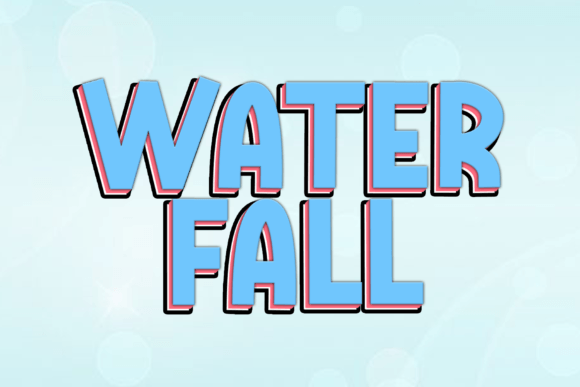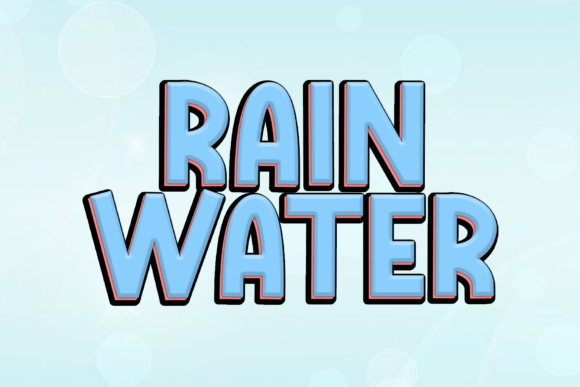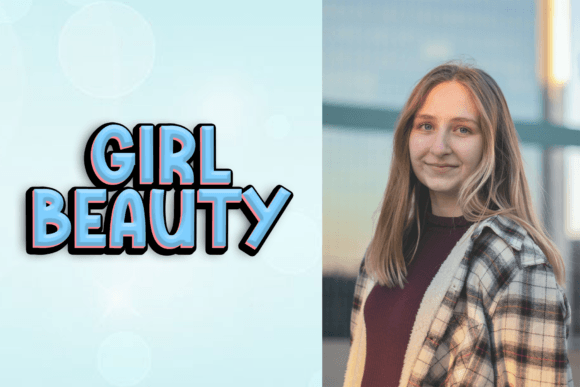
Sparkle Water Font: A Cute Display Font for Social Media Design
About the Sparkle Water Font
From logos to headlines, the Sparkle Water Font is the perfect choice for making a lasting impression. Sparkle Water is a charming display font imbued with a sense of freshness and casual elegance. Its fluid strokes and organic lines evoke a laid-back vibe, making it perfect for various design projects. Whether used for branding, invitations, or social media graphics, Sparkle Water adds a touch of warmth and personality.
Sparkle Water Font Example